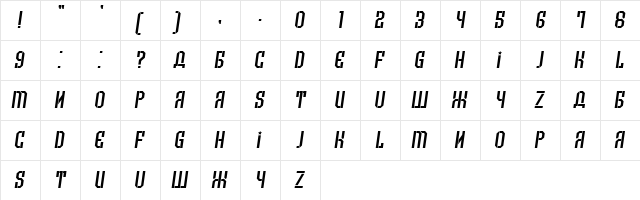
Armenia Italic Font Preview
Armenia Italic
Design Context for Armenia Typeface
Armenia is a composed and adaptable typeface that performs quietly and consistently across a wide range of design contexts. The dynamic lean of this cut emphasises speed and emphasis in any layout.
Pro Tip: Use Armenia for emphasis, pull quotes, and subheadings where its slanted energy can add rhythm to the layout.